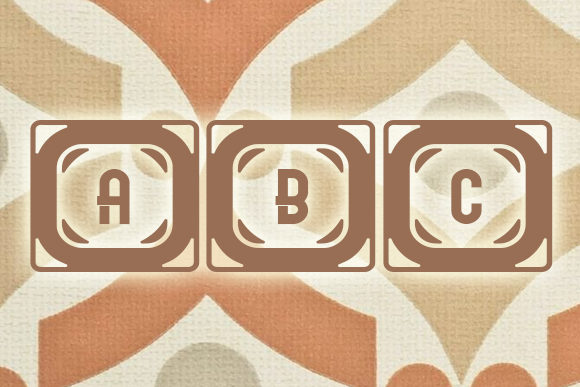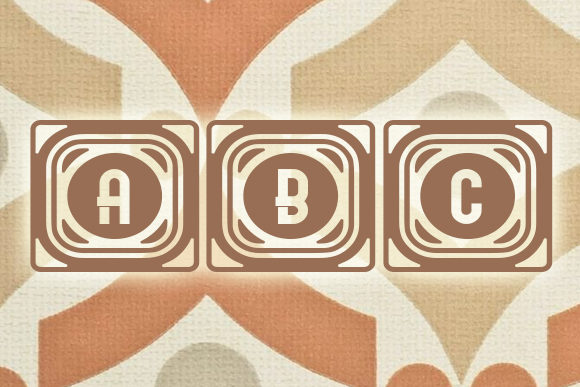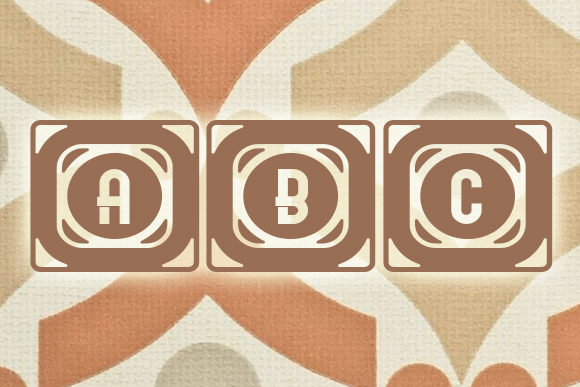
Introduction to Ordinary Capitals Font Font
Fonts play a crucial role in design, and the Ordinary Capitals Font font is a typeface that brings both character and versatility to any project. Whether you’re working on a branding project, a website, or a print design, the Ordinary Capitals Font font offers a unique style that can elevate your work.
Ordinary Capitals is an awesome decorative font.
Use it for any crafting project that requires a personalized look .
Key Features of Ordinary Capitals Font Font
Why Choose Ordinary Capitals Font Font?
The Ordinary Capitals Font font is more than just a typeface – it’s a design tool that helps you communicate your message with style and clarity. Its unique character set and versatile design make it suitable for a wide range of applications, from elegant invitations to bold headlines.
With its carefully crafted letterforms and balanced proportions, the Ordinary Capitals Font font ensures readability and visual appeal across all mediums.
What makes Ordinary Capitals Font font special?
The Ordinary Capitals Font font stands out with its unique design, exceptional readability, and versatility across various design applications.